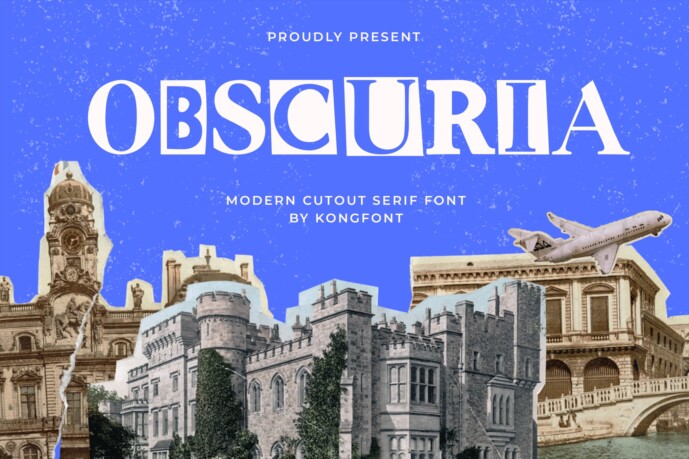
Obscuria Font
Obscuria – Modern Cutout Serif Font
Obscuria is a modern cutout serif font that blends classic elegance with bold, abstract forms. Featuring dramatic serifs, unexpected negative spaces, and a refined structure, this typeface is designed to intrigue, impress, and elevate your creative work.
Perfect for fashion branding, editorial titles, posters, album covers, and luxury packaging, Obscuria brings a mysterious, high concept aesthetic to your designs. Each letterform feels curated and artistic ideal for brands and creators who want their typography to stand out with sophistication and personality.
Step into bold refinement with Obscuria where beauty meets mystery.